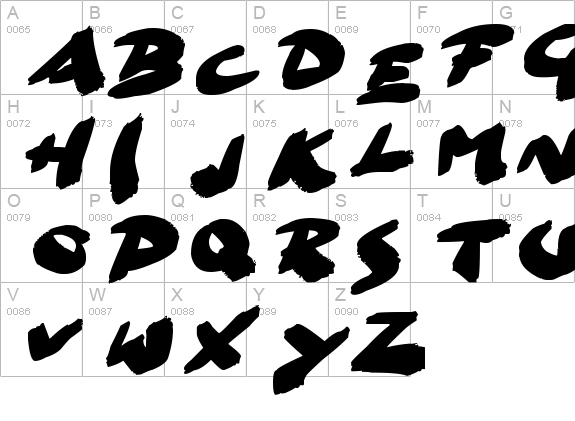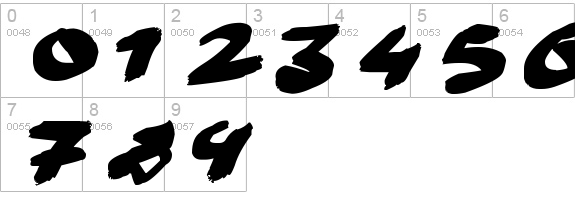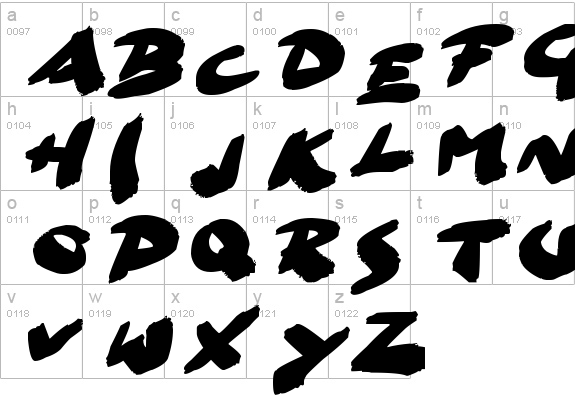
Go Faster Brush Font Details
Go Faster Brush is a free for personal use font in the Script > Brush category, designed by Darrell Flood. It has been downloaded 92 times and is available for Windows, Mac and Linux.
The Go Faster Brush font is a dynamic and energetic typeface that captures the essence of speed and movement. With its bold strokes and modern design, this font is perfect for projects that require a sense of urgency and action. The brush strokes give it a handmade feel, adding a touch of personality to your designs.